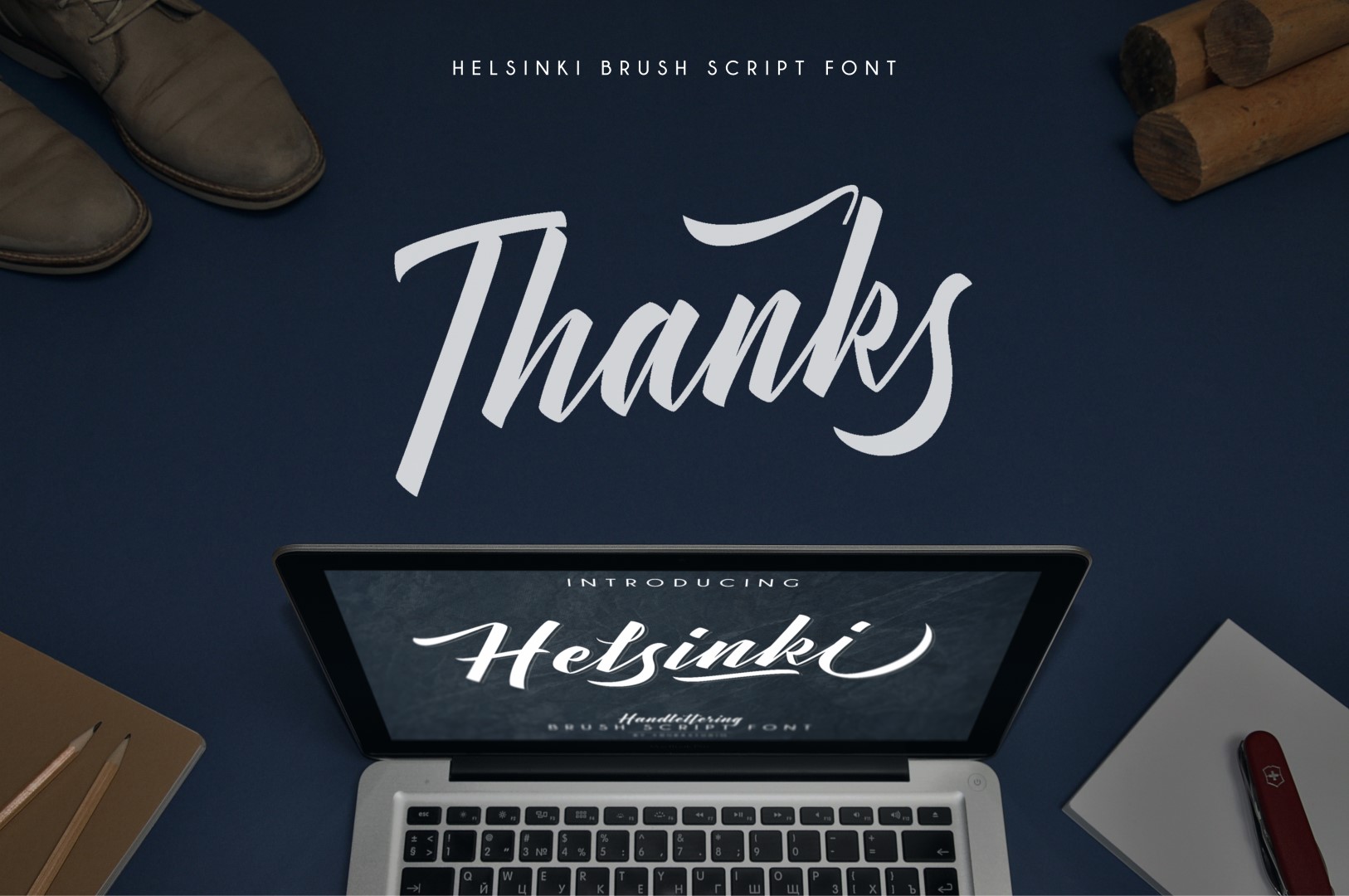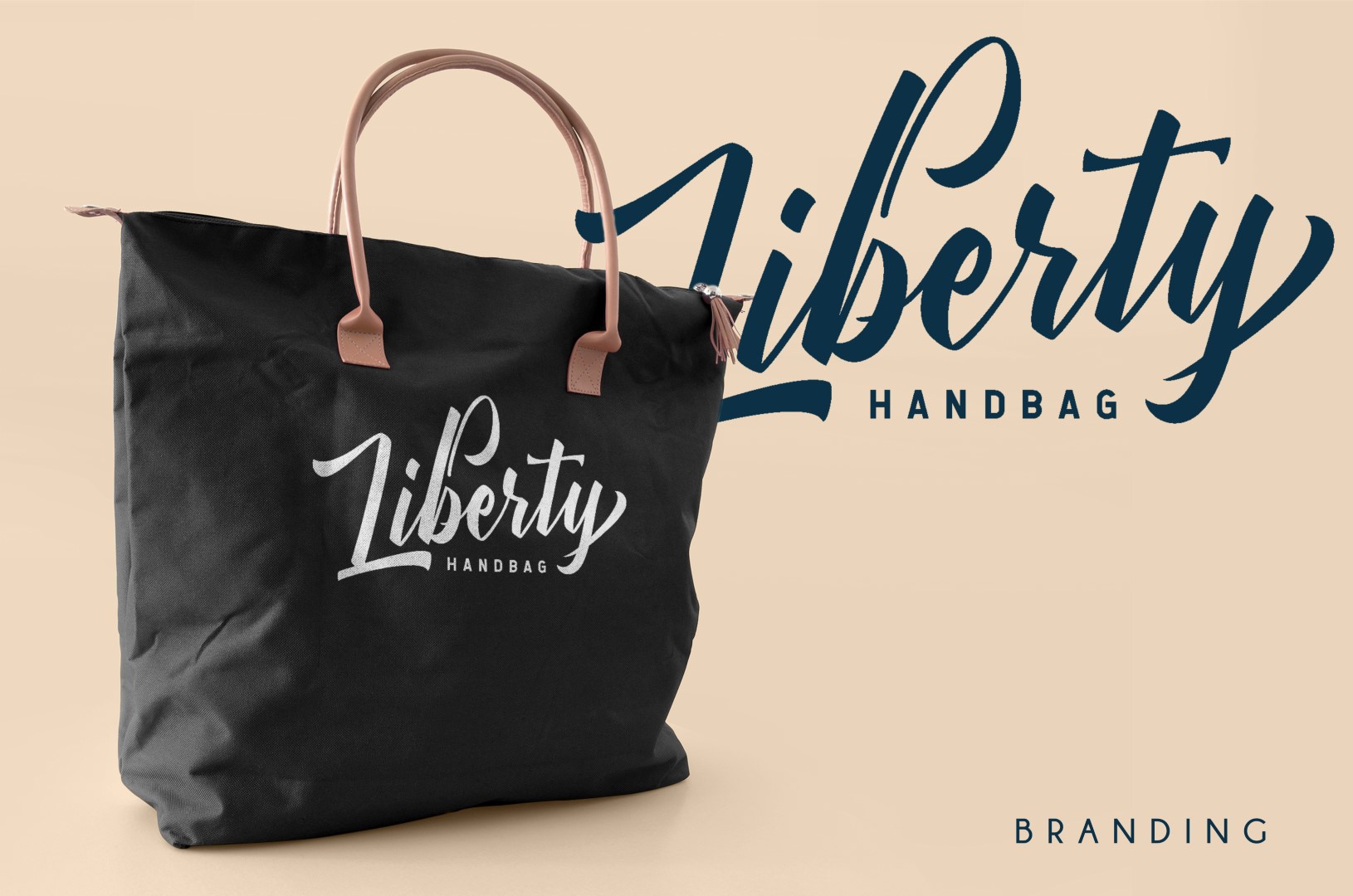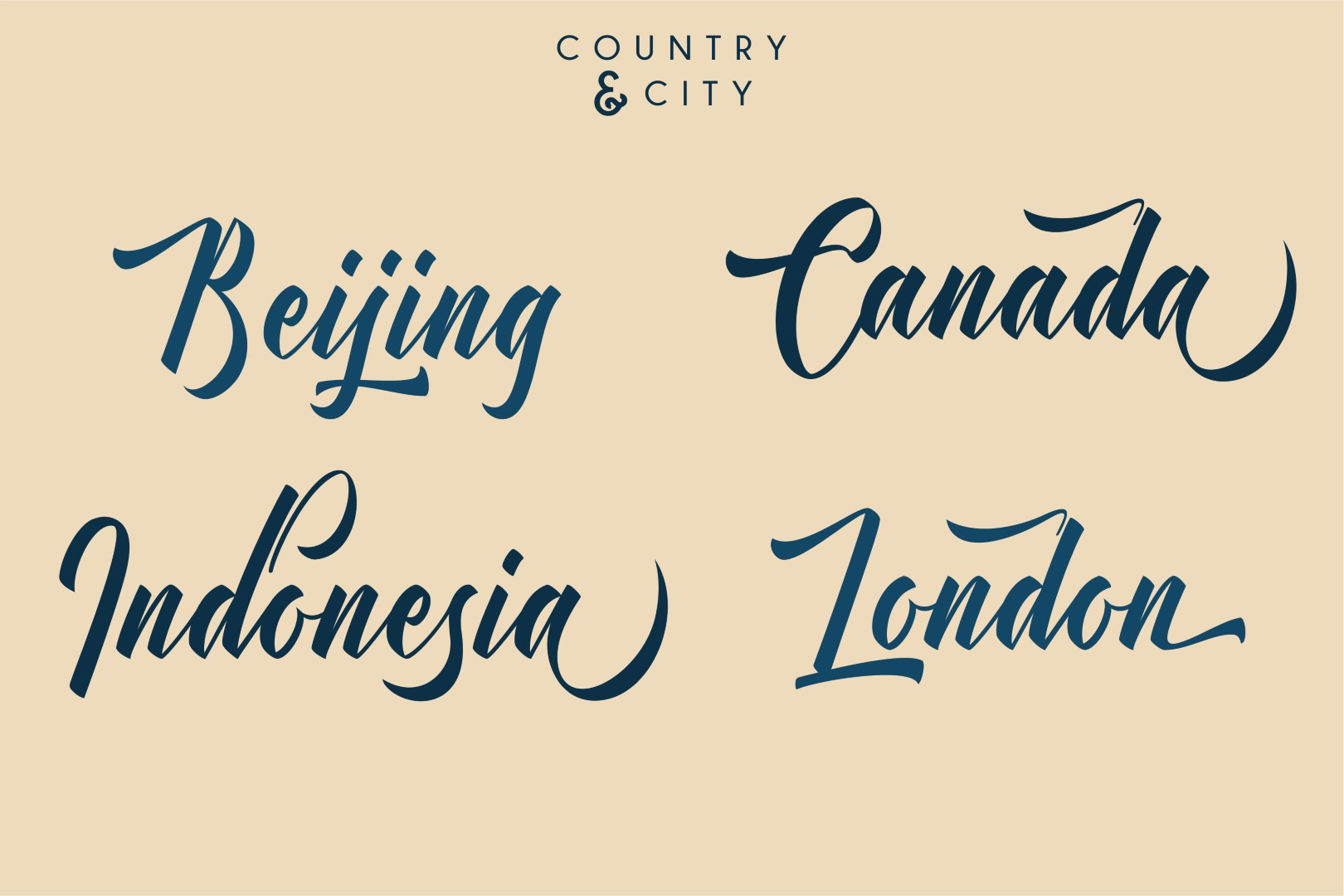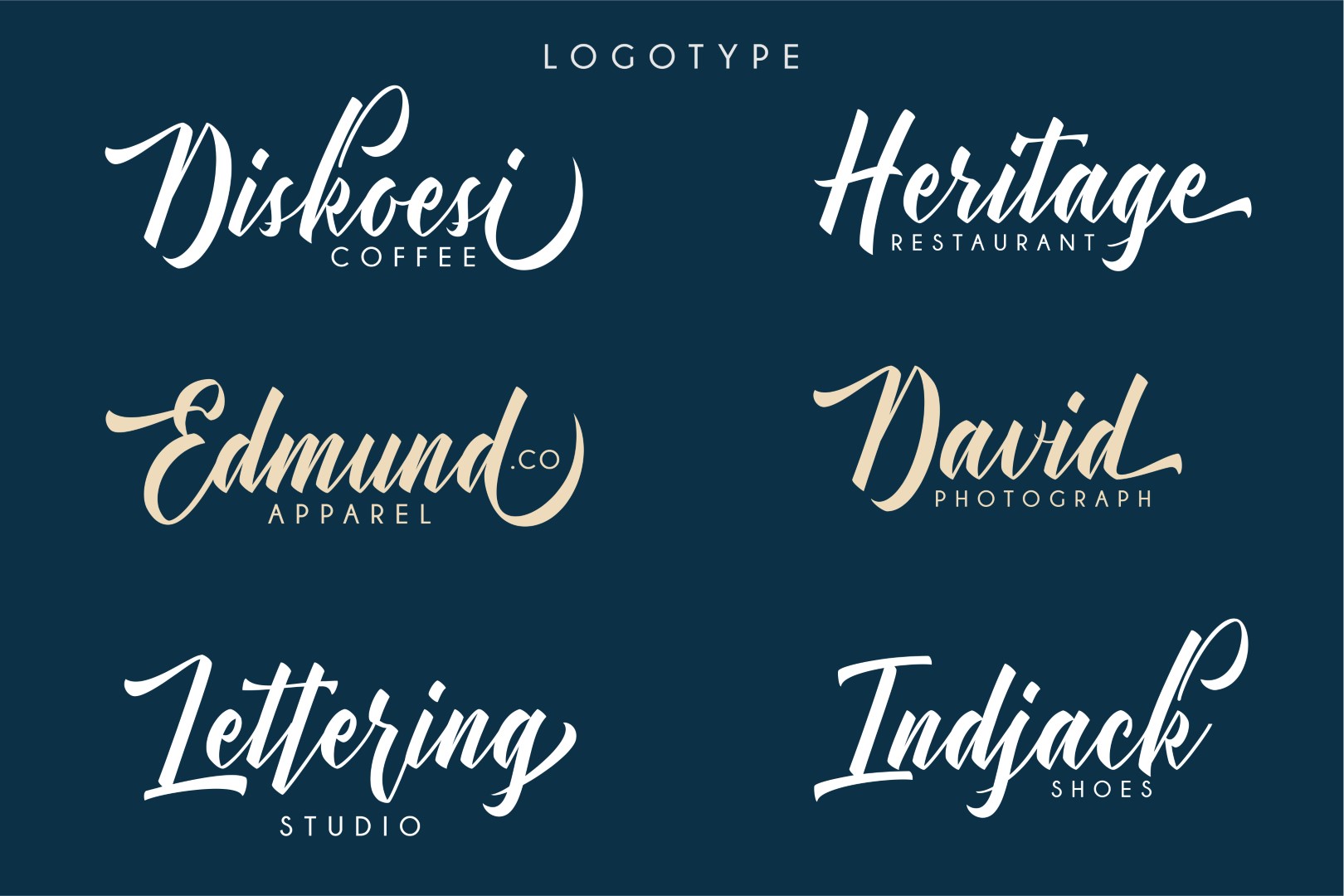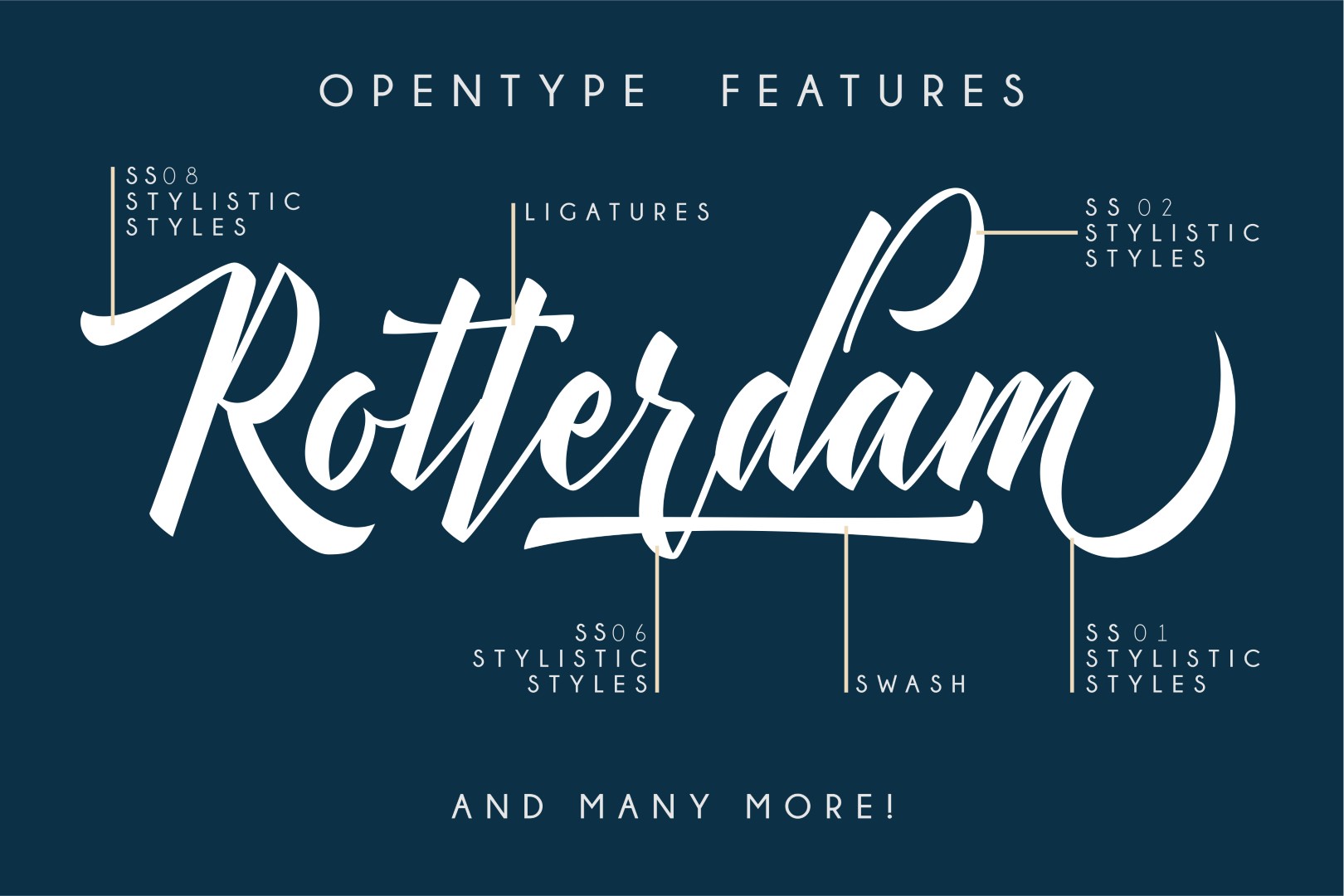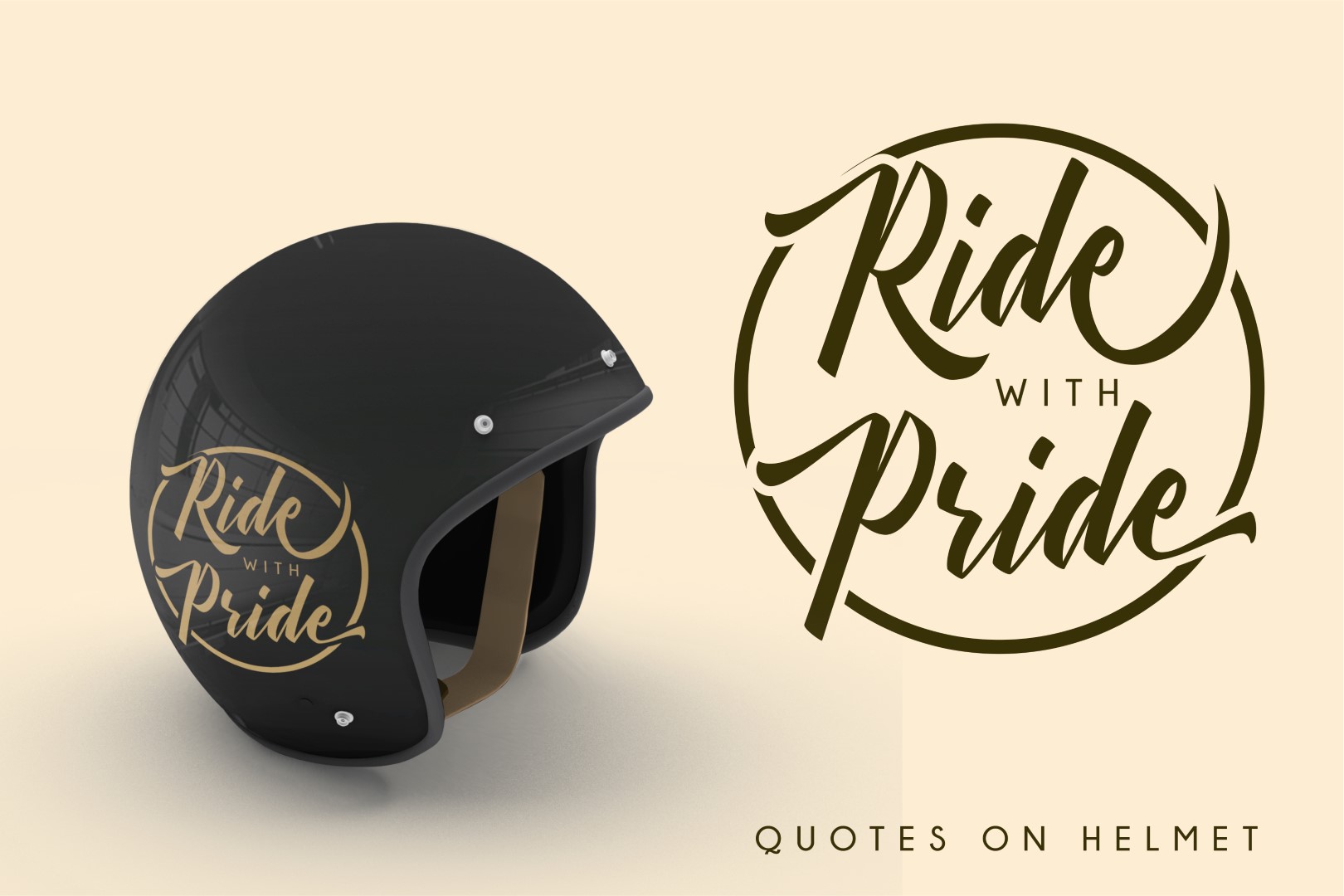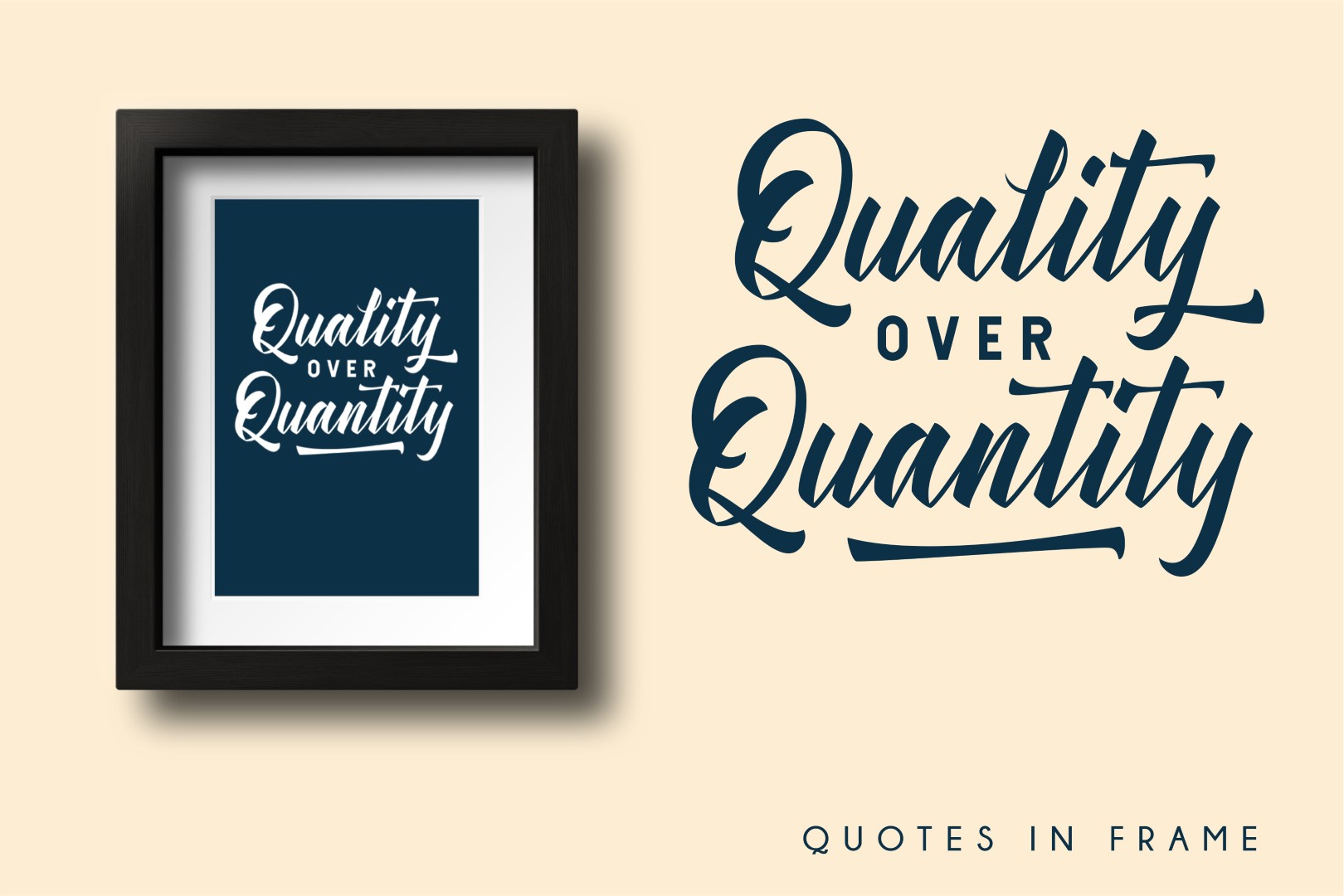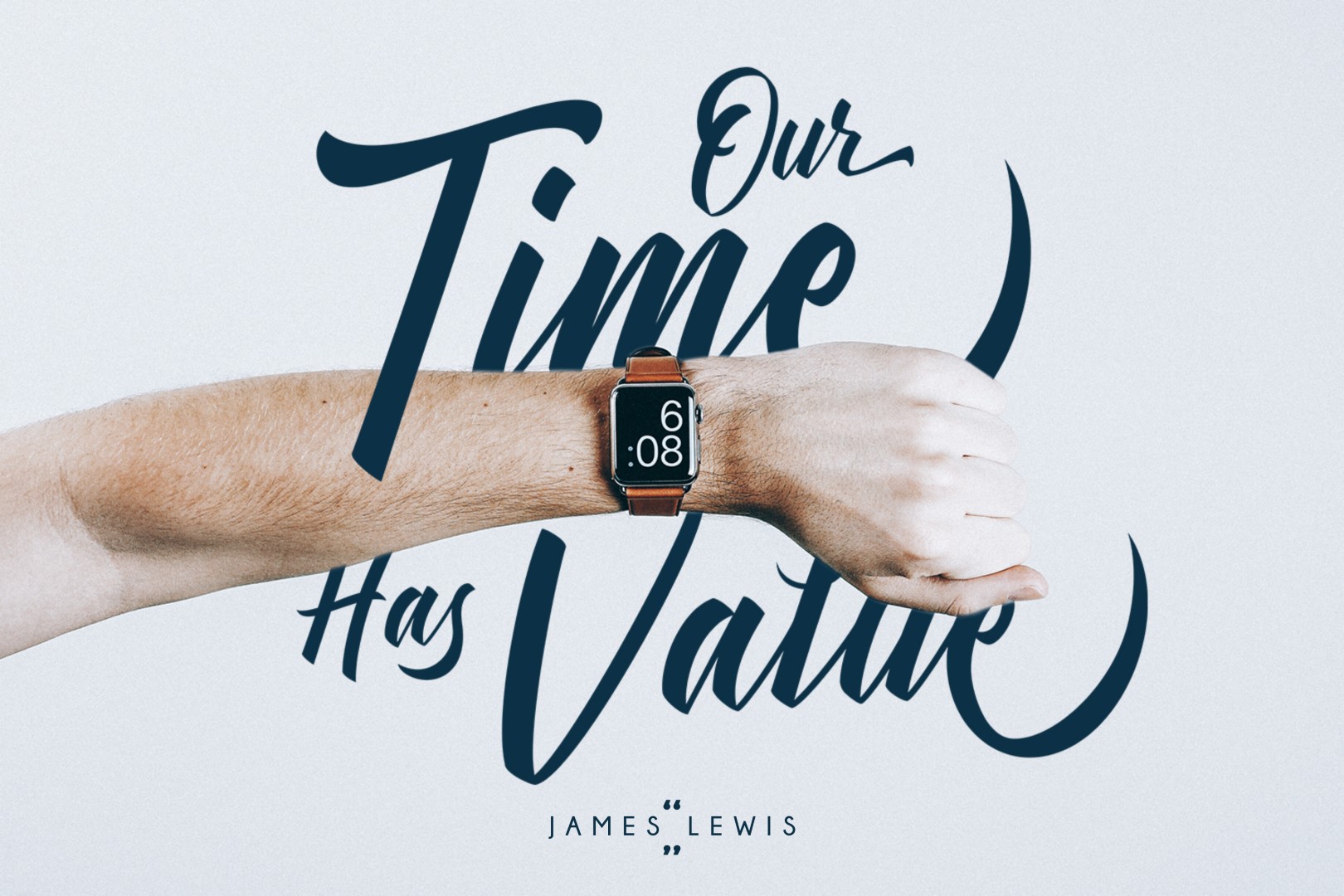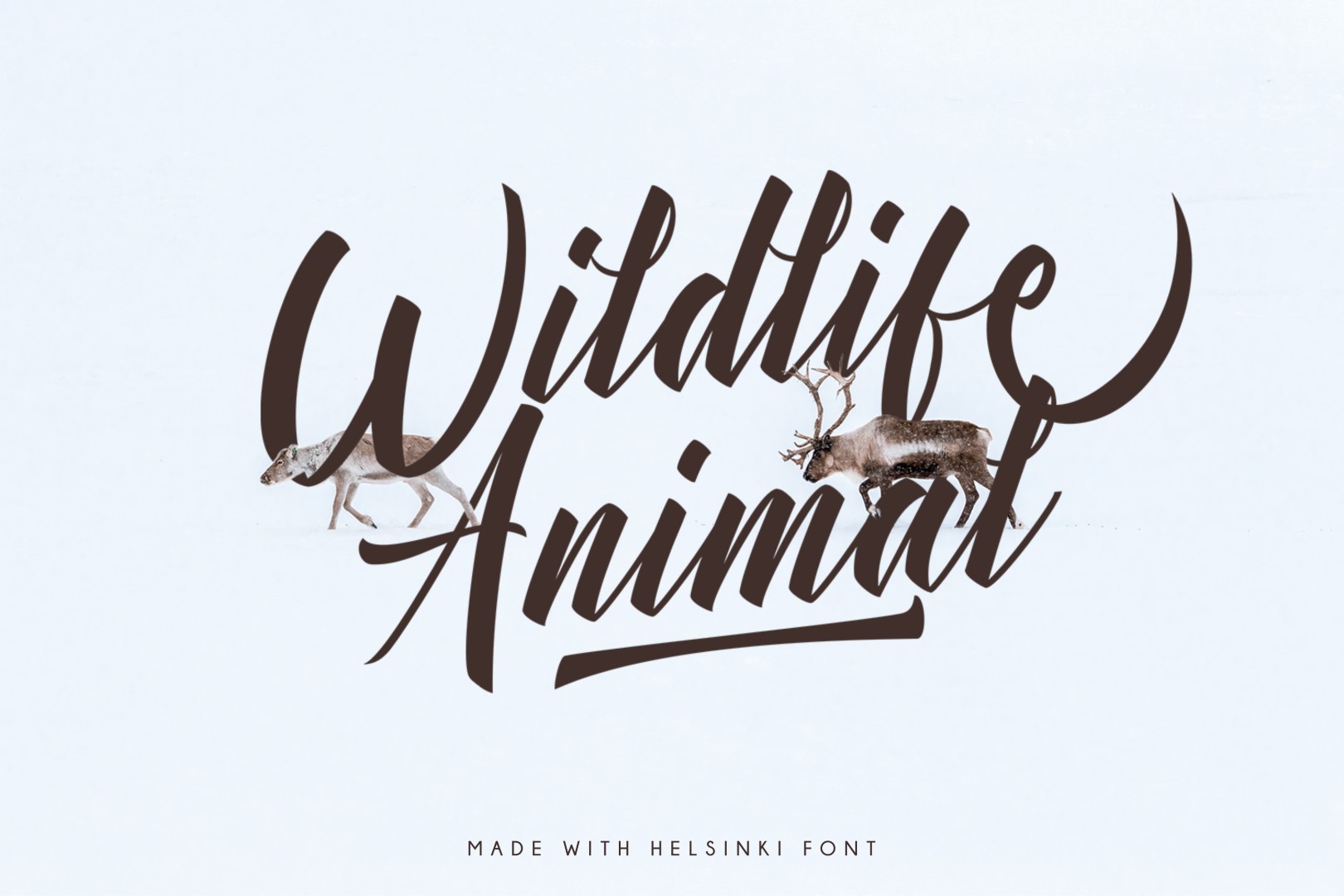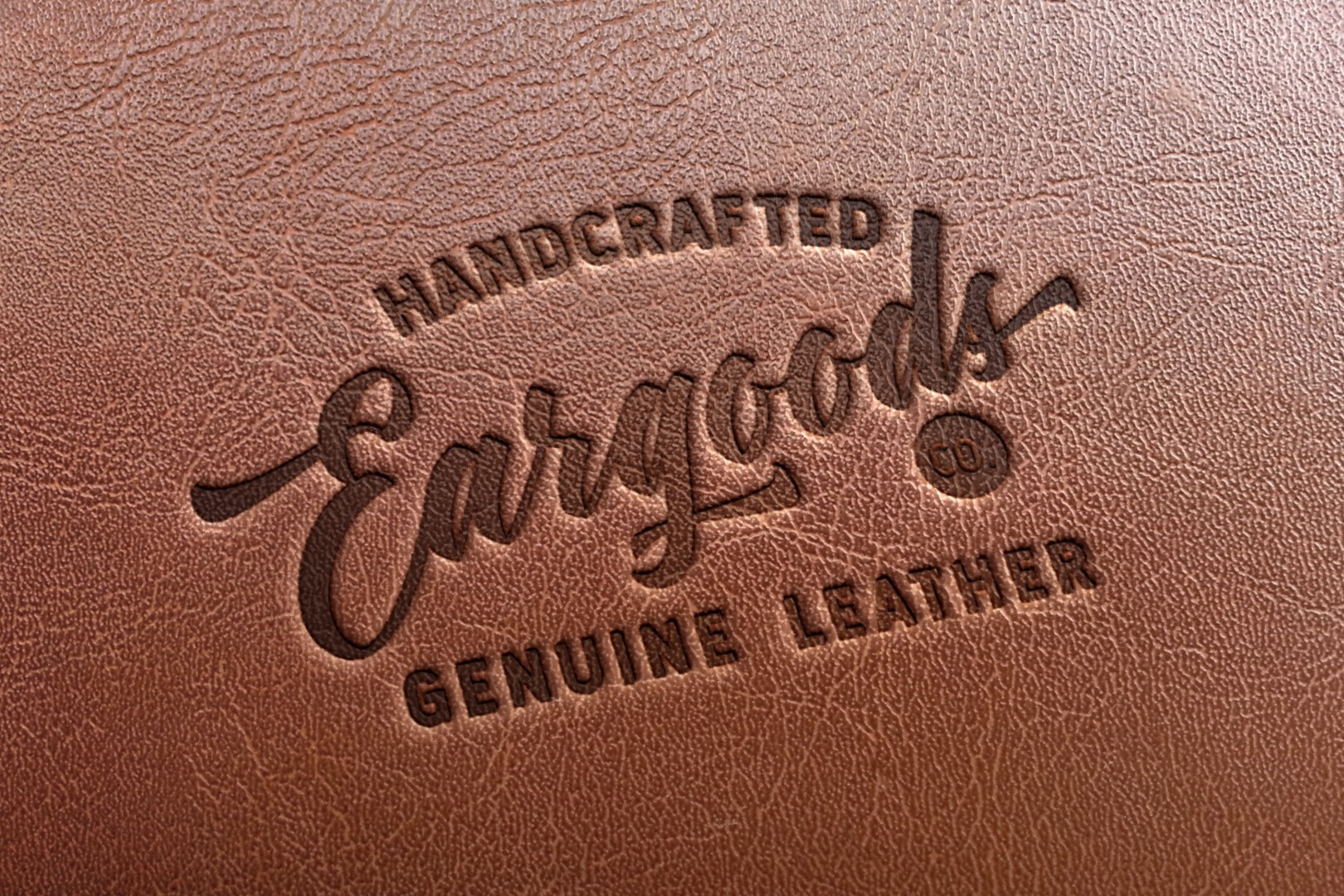
Helsinki Font
About Helsinki Font
Helsinki is a modern handlettered brush script font, perfect for giving your designs a retro inspired feel. This font is perfectly crafted for logotype, and comes with bonus swashes so you can create fully comprehensive designs.